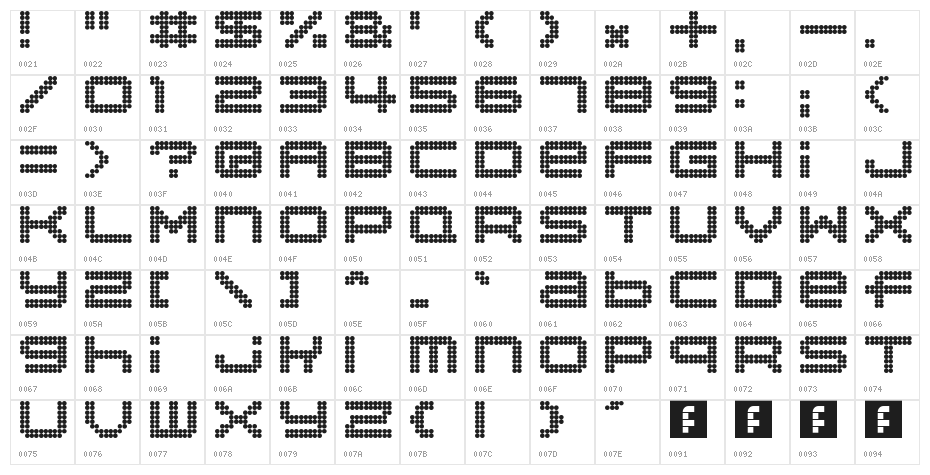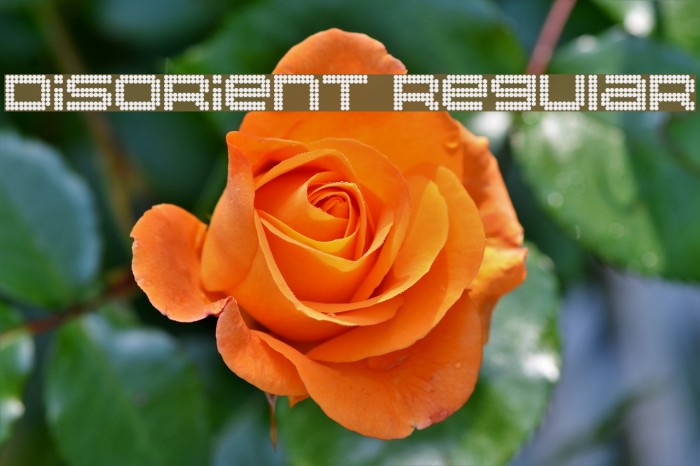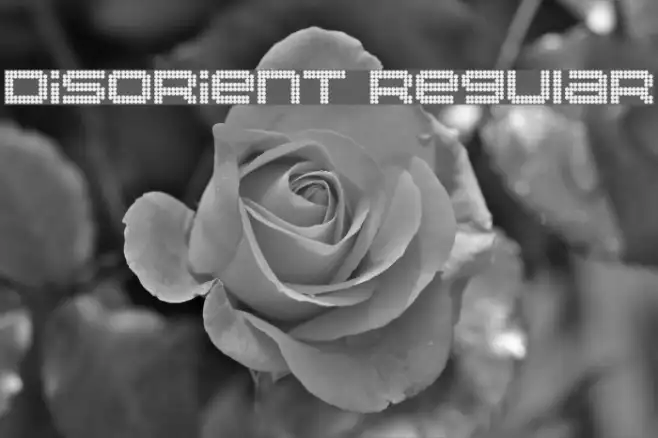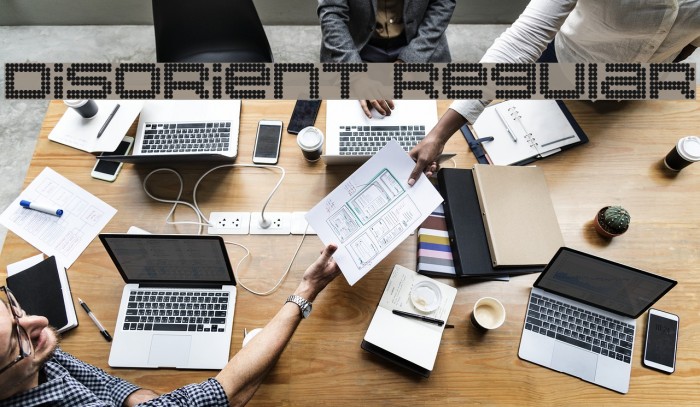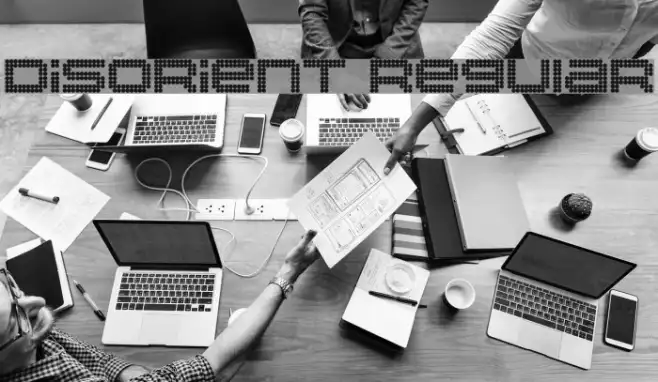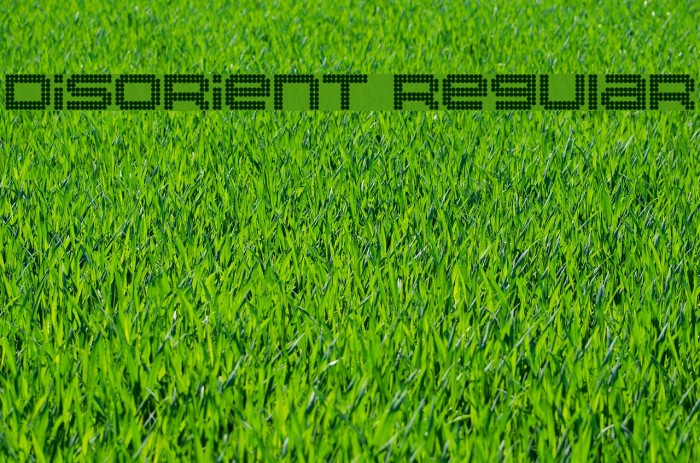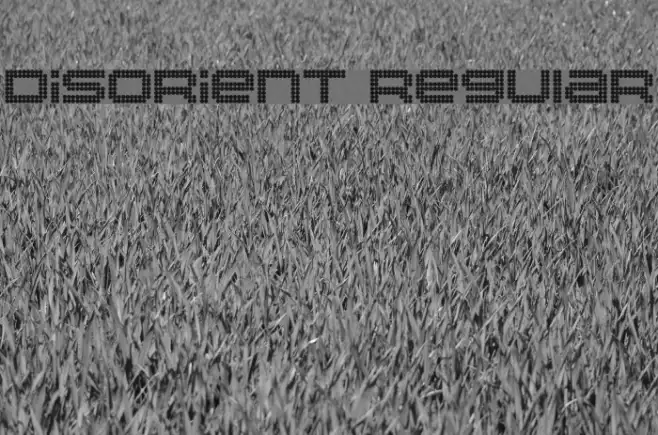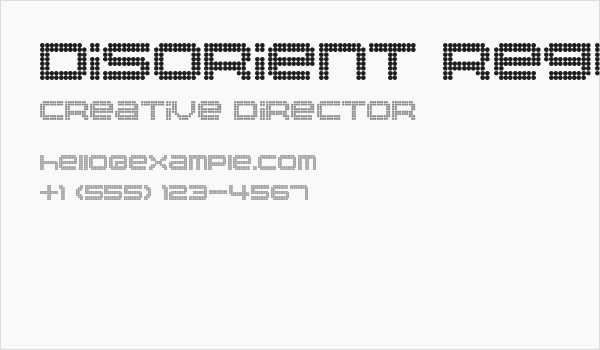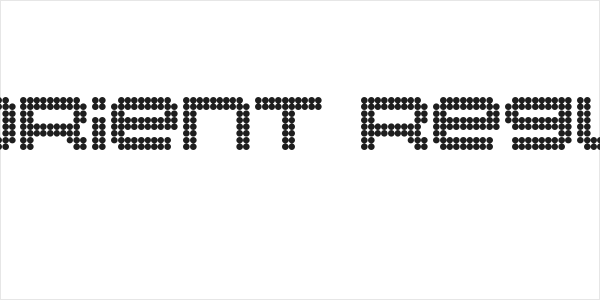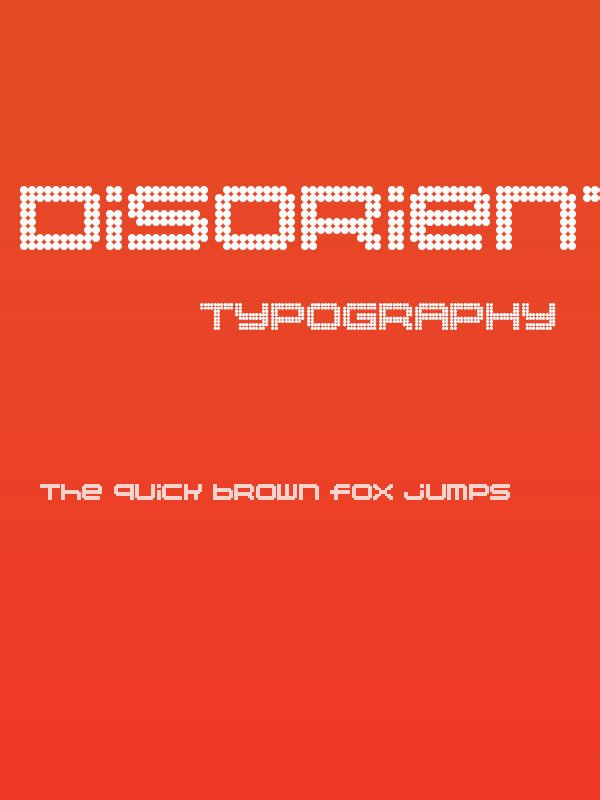
Disorient Regular Font
Disorient Regular Description
This font features a unique, dotted design that creates a digital and futuristic appearance. Each character is constructed from a series of small, evenly spaced dots, giving it a pixelated look reminiscent of early digital displays or LED signage. The characters maintain a uniform height and width, contributing to a consistent and structured feel. The font is highly legible despite its unconventional style, making it suitable for creative and modern applications. Its geometric nature and distinct appearance make it ideal for projects that require a tech-savvy or avant-garde aesthetic.
| Proposed Projects | Ideal for digital art, tech branding, futuristic posters, and electronic music album covers. |